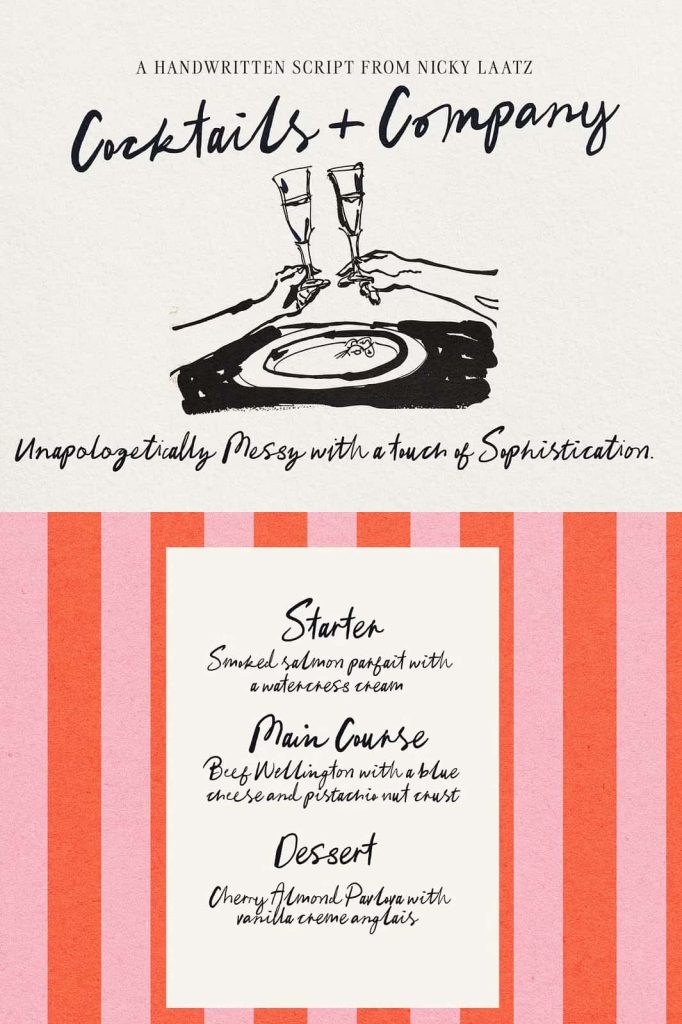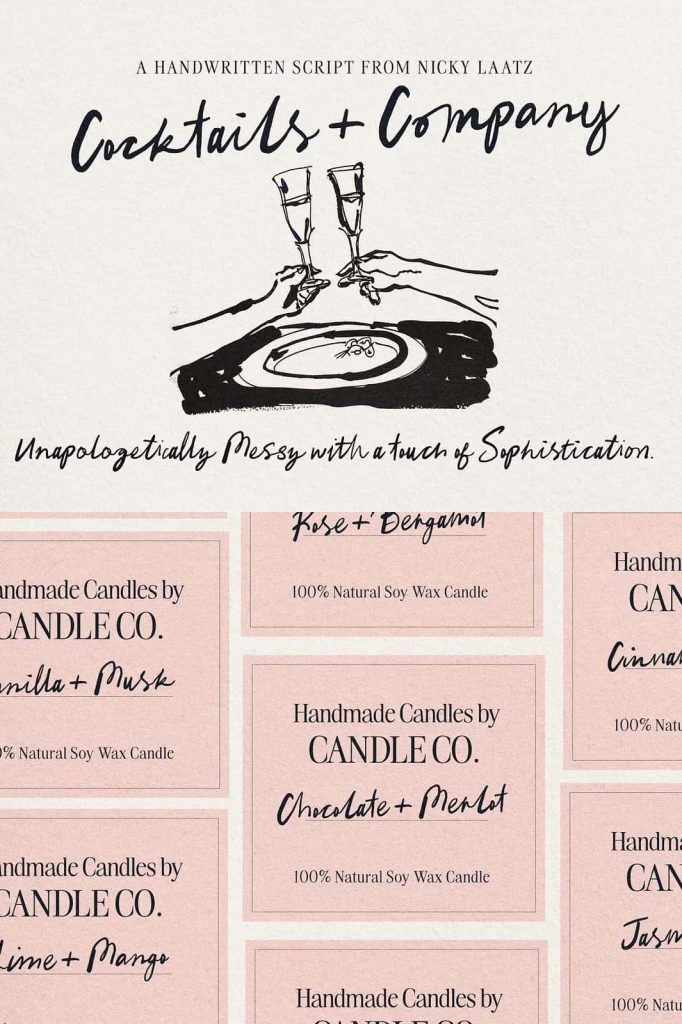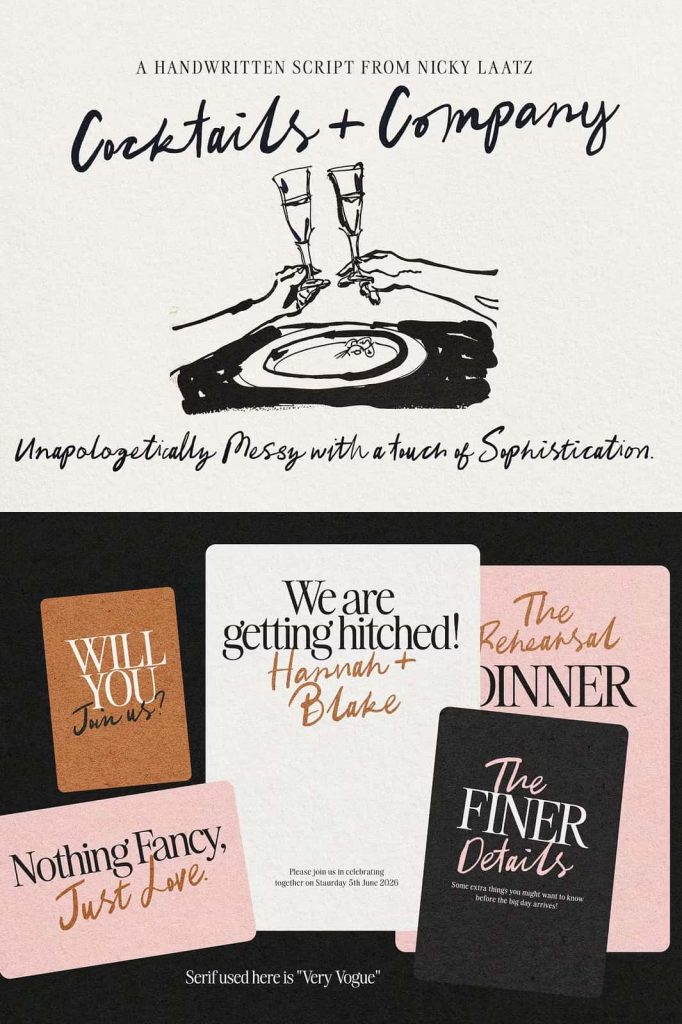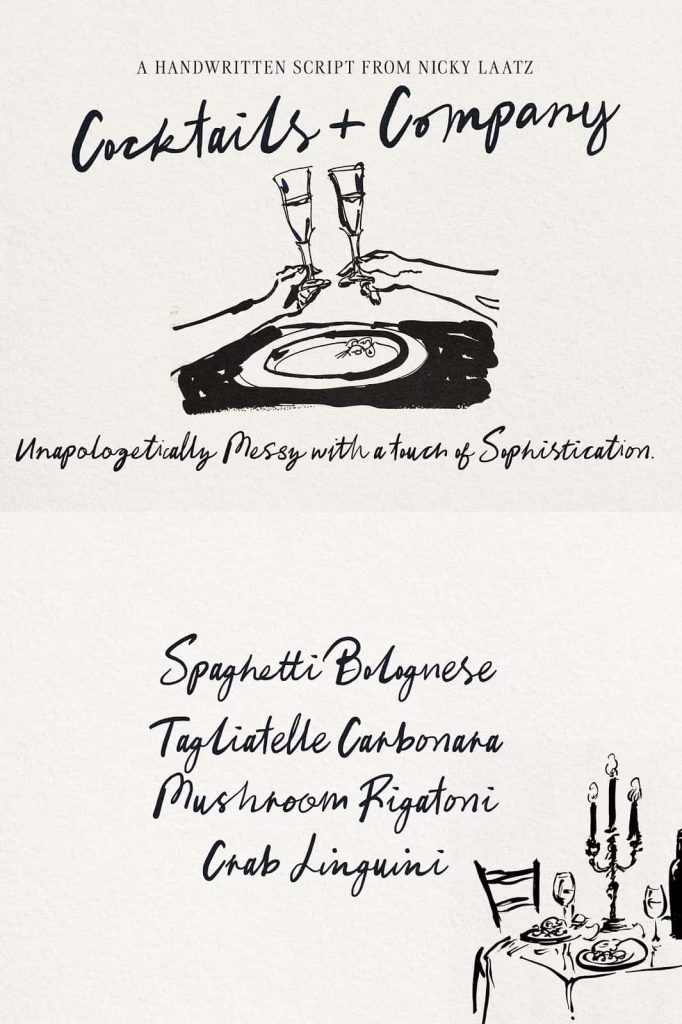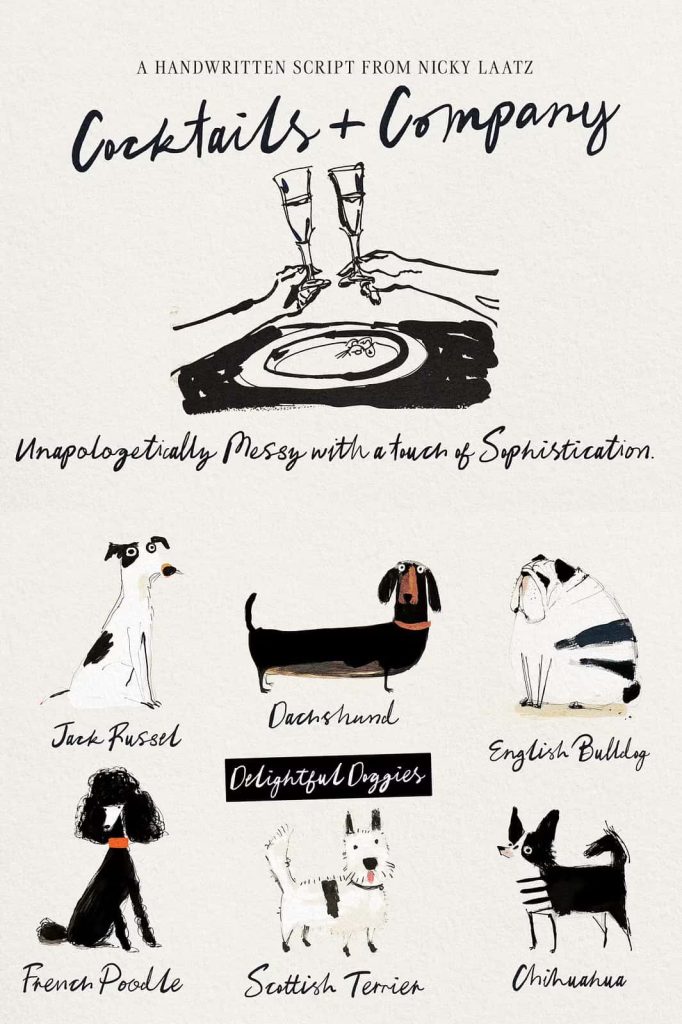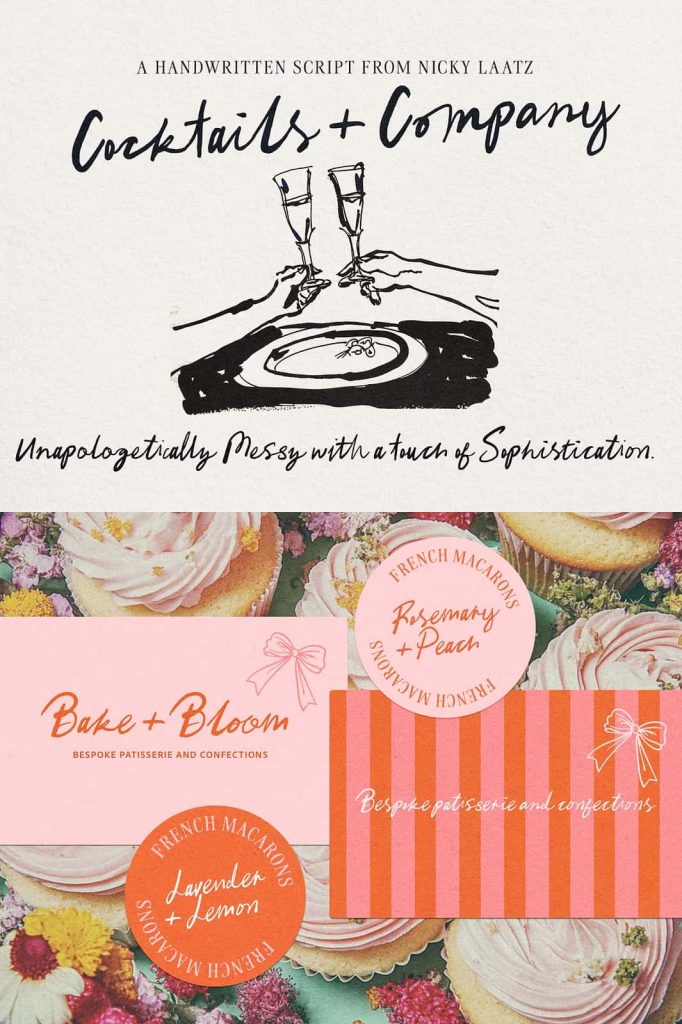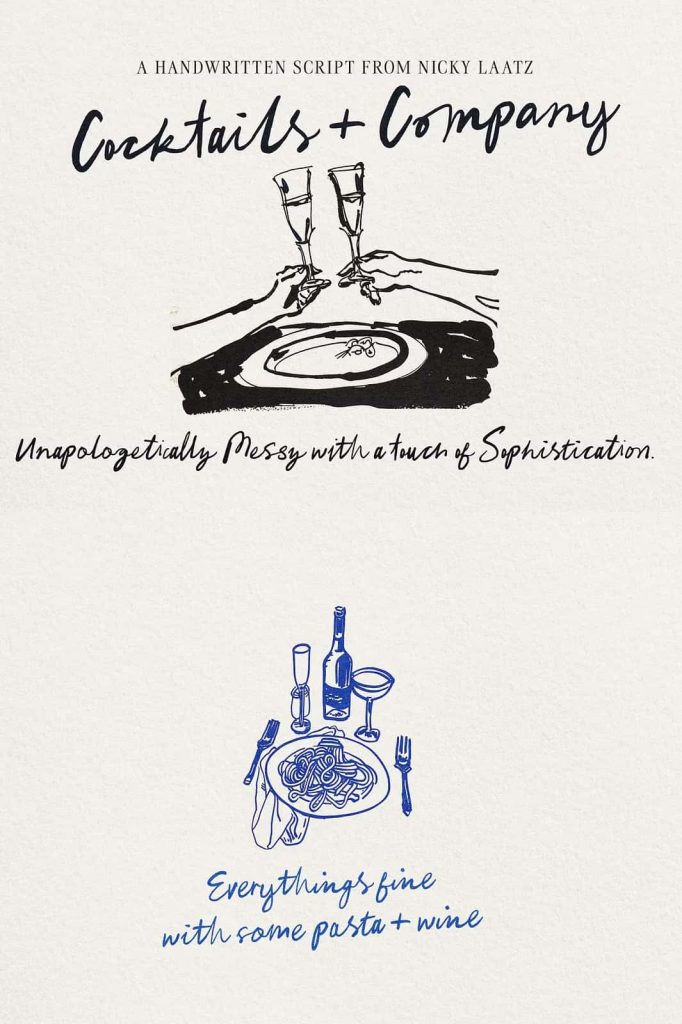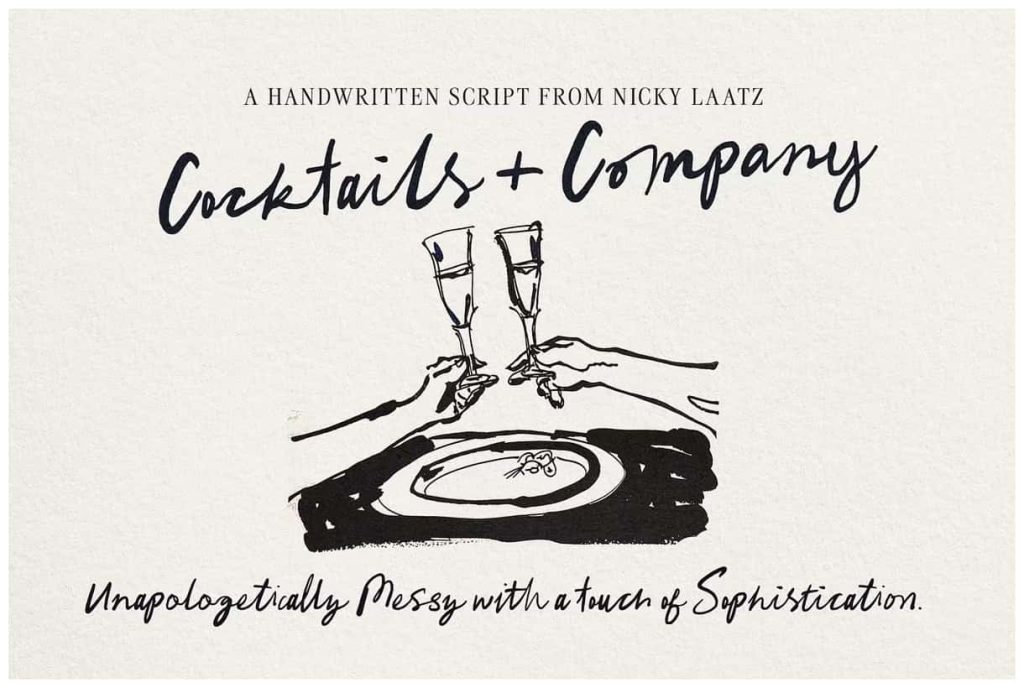
Cocktails and Company Script
Cocktails and Company Font: A Messy Handwritten Script with Sophisticated Character
The Cocktails and Company Font brings together expressive handwriting and refined styling to create a script typeface full of personality. Designed for creators who want a bold, handwritten aesthetic without losing elegance, this font blends deliberate messiness with a touch of sophistication. Its unique ligature-focused design gives every word a natural flow and an authentic handwritten rhythm, making it the perfect choice for branding, invitations, social media posts, packaging, and expressive design projects that require a warm human touch.
A Handwritten Script That Embraces Imperfection
Cocktails and Company celebrates the beauty of imperfection. Instead of following a rigid or overly polished style, the font embraces a free-flowing, messy script that feels intentionally raw and unapologetically expressive. The strokes carry personality, the curves feel spontaneous, and each letter moves with the energy of true handwriting. This intentional messiness adds charm and emotional depth, allowing designers to create visuals that feel personal, fun, and deeply engaging.
Natural-Looking Ligatures for Authentic Handwriting Flow
One of the defining features of the Cocktails and Company Font is its strong emphasis on ligatures. Each ligature is crafted to mimic how letters naturally connect in spontaneous handwriting. This ensures that every word flows smoothly and visually mimics the natural movement of a pen on paper. The ligature-based structure eliminates repetitive patterns, making long phrases look effortlessly handwritten rather than mechanically typed. By automatically adjusting letter combinations, the font produces organic variations that enhance realism and elevate your design quality.
Perfect for Branding and Creative Identity
Creative businesses, boutiques, and lifestyle brands rely on fonts that communicate personality and emotion, and Cocktails and Company delivers exactly that. Its stylish messiness pairs beautifully with modern logos, product labels, business cards, and artisanal branding. When used in brand elements, the font adds a warm and expressive tone that resonates with audiences looking for authenticity and charm. Whether you are building a new identity or refreshing an existing brand, this handwritten script brings contemporary energy and handcrafted elegance to your visuals.
Bring Character to Invitations and Stationery
Invitations and stationery designs benefit greatly from fonts that feel personal, and Cocktails and Company excels in this area. Its fluid movement and natural ligatures make wedding invitations, greeting cards, thank-you notes, and event stationery feel uniquely intimate. The font’s messy yet refined strokes create a memorable impression that makes every message feel heartfelt. Designers can use it as a primary script or pair it with serif and sans-serif fonts to create a balanced, modern aesthetic.
A Dynamic Choice for Social Media and Digital Content
In today’s digital landscape, strong visuals are essential, and this font enhances social media graphics with bold, expressive flair. Use Cocktails and Company for Instagram quotes, Pinterest graphics, promotional posts, highlight covers, or lifestyle messaging. Its energetic strokes and handwritten charm help your content stand out instantly. The font adds emotion and movement, inviting viewers to engage and connect with your message.
Versatile Enough for Packaging, Advertising, and Creative Projects
Beyond its handwritten appeal, Cocktails and Company is highly versatile. It works beautifully across product packaging, labels, ads, posters, editorial layouts, website headers, and handmade product branding. Its imperfect beauty and fluid texture add character to minimal designs and bring warmth to modern compositions. The font supports expressive storytelling, making it ideal for projects that need personality, creativity, and emotional depth.
The Cocktails and Company Font is more than a handwritten script; it is a celebration of expressive imperfection and natural handwriting. Its messy strokes, elegant ligatures, and handcrafted style create an unforgettable visual identity for any project. From branding to invitations, from social media to packaging, this script font offers creative freedom and authentic charm. If you want a handwritten typeface that feels real, lively, and artistically sophisticated, Cocktails and Company is the perfect choice.